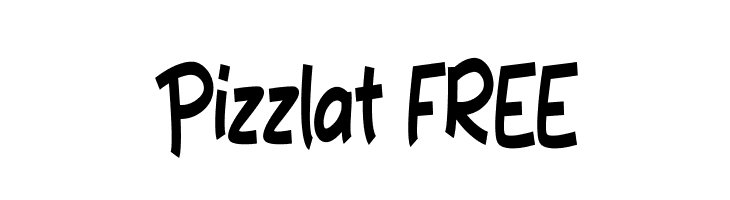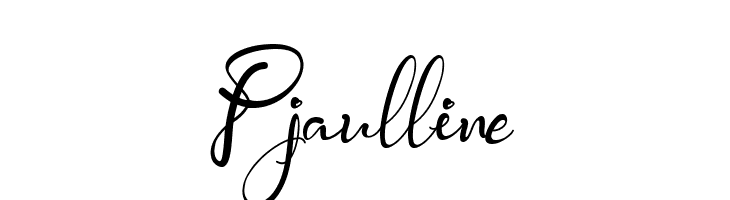
A bold, playful font with a vintage feel, perfect for eye-catching designs.
A playful, casual handwritten font with smooth, flowing curves.
A playful, bold font with a hand-drawn, dynamic style.
A bold, playful font with rounded, energetic characters.
A lively and elegant script font with flowing, cursive letterforms.
A rugged, hand-drawn font with a grunge aesthetic and irregular, textured strokes.